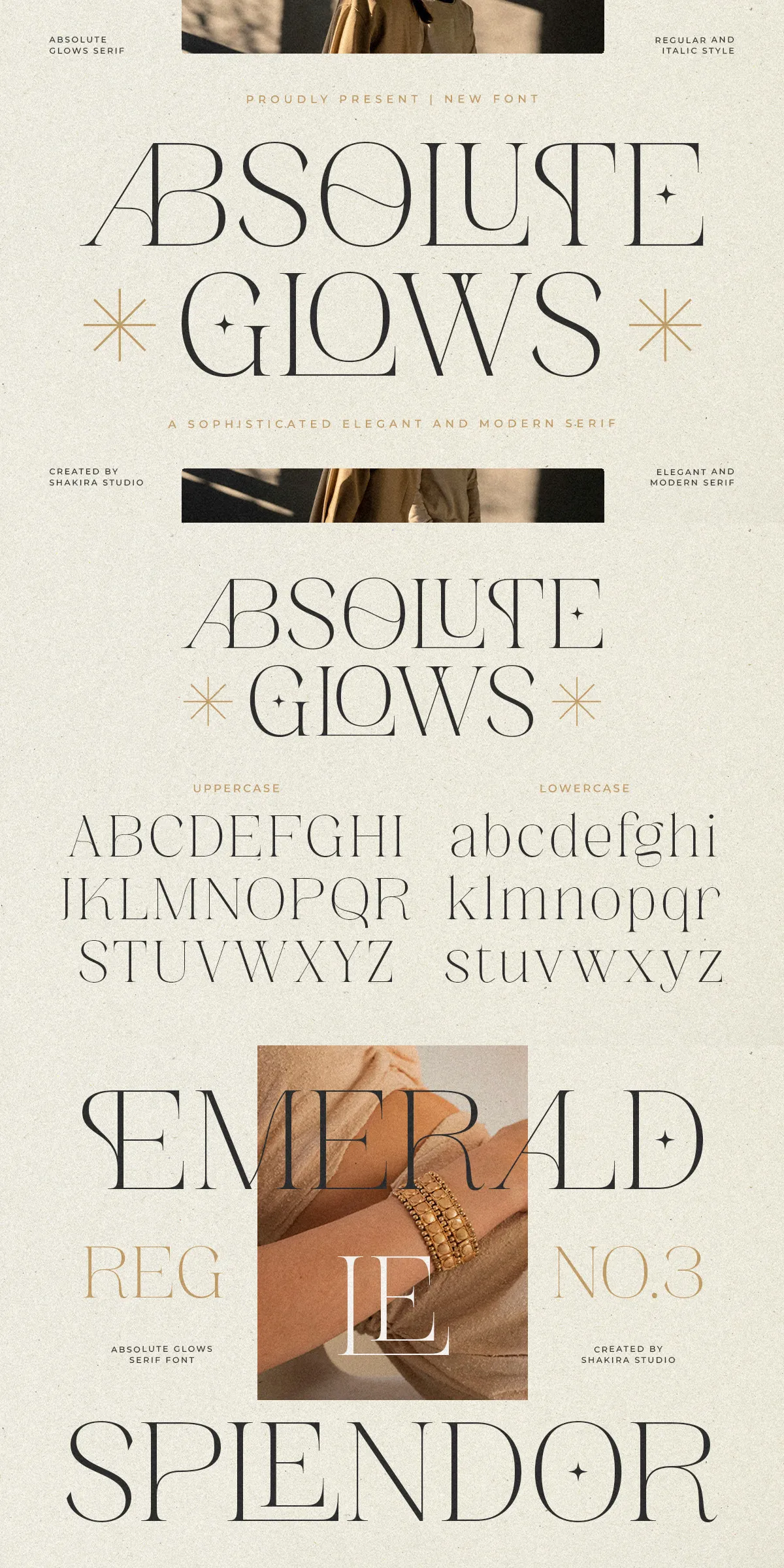
Absolute Glows delivers a modern serif voice that actively elevates brand identity. Designed with balanced stroke contrast, refined curves, and thoughtful details, this typeface empowers designers to create confident, upscale layouts. Absolute Glows reads clearly at display sizes and carries a polished sophistication across logos, packaging, editorial headlines, and wedding stationery. The face moves beyond decoration—every shape serves legibility and character—so your creative work feels intentional, premium, and unmistakably refined.
Why Absolute Glows Elevates Luxury Logos And Design Systems
Absolute Glows combines classical serif proportions with contemporary refinement to produce letterforms that feel both fresh and timeless. The measured contrast and open counters enhance readability while preserving distinctive terminals and ligature shapes that add personality. Use Absolute Glows when you need typography to assert quality: the typeface creates instant visual hierarchy, supports powerful wordmarks, and complements art direction without competing with imagery. Its elegant rhythm suits fashion campaigns, boutique identity systems, and high-end packaging where every visual decision should reinforce brand value.
Technical Features And Included Font Options
- Full uppercase and lowercase character sets for broad typographic flexibility
- Alternates and ligatures to refine logotypes and bespoke headline treatments
- Multilingual support with extended diacritics for international projects
- PUA-encoded glyphs for easy access to stylistic alternates and swashes
- Regular and Italic styles maintain consistent voice across applications
Practical Uses And Design Applications For Immediate Impact
Absolute Glows fits any project that demands a premium typographic presence. Apply it to boutique logos and identity systems to establish an elegant, memorable wordmark. Use it on packaging to communicate craft and luxury—labels, boxes, and product collateral gain clarity and tactile authority when typeset in Absolute Glows. In editorial contexts, the font produces striking magazine titles and feature headlines that read with poise. Wedding stationery and beauty campaigns benefit from the face’s graceful curves and refined detail, which evoke sophistication without appearing ornate.
Implementation Tips To Maximize Visual Effectiveness
- Pair Absolute Glows with a neutral sans-serif for body copy to preserve readability while showcasing the serif as a display element.
- Increase tracking and scale for headlines to emphasize letterform proportions and to create luxurious negative space.
- Use alternates and ligatures selectively to craft distinctive logotypes without harming legibility in long headlines.
- In print, select quality paper stocks and finishes—Absolute Glows benefits from tactile materials that reflect its premium intent.
Pairing Recommendations And Visual Styling Strategies For Cohesion
Create harmonious systems by pairing Absolute Glows with modern geometric or humanist sans-serifs to introduce contemporary contrast. Favor restrained color palettes—muted neutrals, soft monochromes, or a single accent hue—so typography remains the primary communicator of brand tone. Introduce minimal separators, subtle monograms, and simple iconography that echo the serif’s measured terminals. For logotypes, experiment with mixed-case treatments and alternates to achieve specialized marks that scale across digital and physical touchpoints.